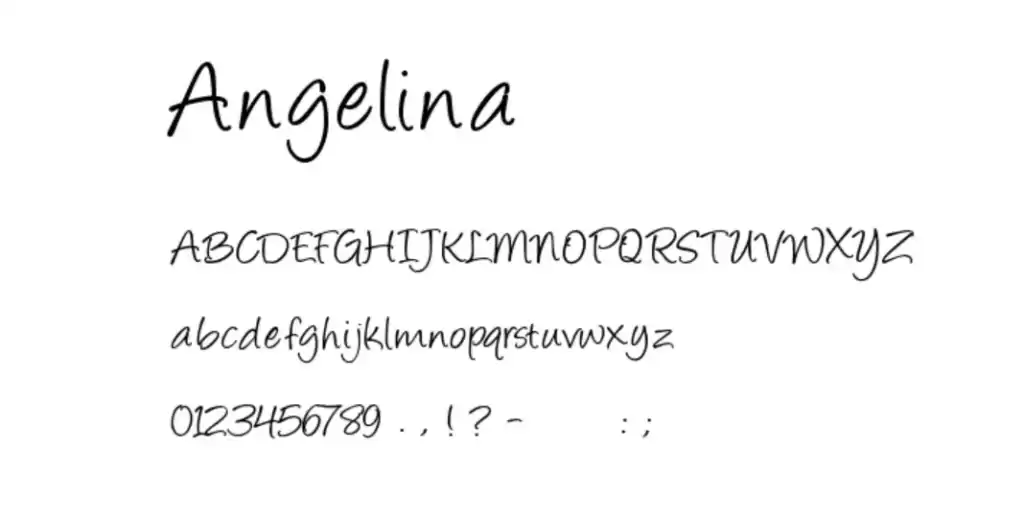
Angelina Font
Angelina Font is a gorgeous calligraphy and script font. A work created solely by handwriting has a natural quality to it. The Typeface is designed in a modern, handwritten manner. It brings a gorgeous and modern typeface to the table. Angelina is a totally new, modern script with calligraphy, ornamental letters, and a dancing baseline! There are 243 descriptive characters and 102 distinct glyphs in this set.
Characters from the following languages are included in the font: Fundamental latin (93), latin-1 supplement (95), latin extended-a (10) and latin prolonged-b (1), spacing modifier letters (8), greek and Coptic (3) preferred punctuation (15), letterlike symbols (1), mathematical operators (12), geometric shapes (1), and personal use area (1) are the Unicode individual ranges (3). This Typeface contains a display font in three weights: normal, bold, and black, which look excellent at large sizes, as well as a text font in two styles: regular and italic, which look fantastic at small sizes and in lengthy texts.
Angelina is the font family for this font. This font belongs to the Regular Font subfamily. Altsys Fontographer 4.0 Angelina is the font’s unique subfamily identity. Angelina is the full font name for this font.
The beautiful font is designed and published by Angie Durbin.This is a high-quality typeface that was created and shared via font bundles. This font is casual and free of swashes. This font is suitable for a variety of applications, including logos, product packaging, wedding invitations, branding, headlines, signage, labels, signatures, e-book covers, posters, fees, and more.